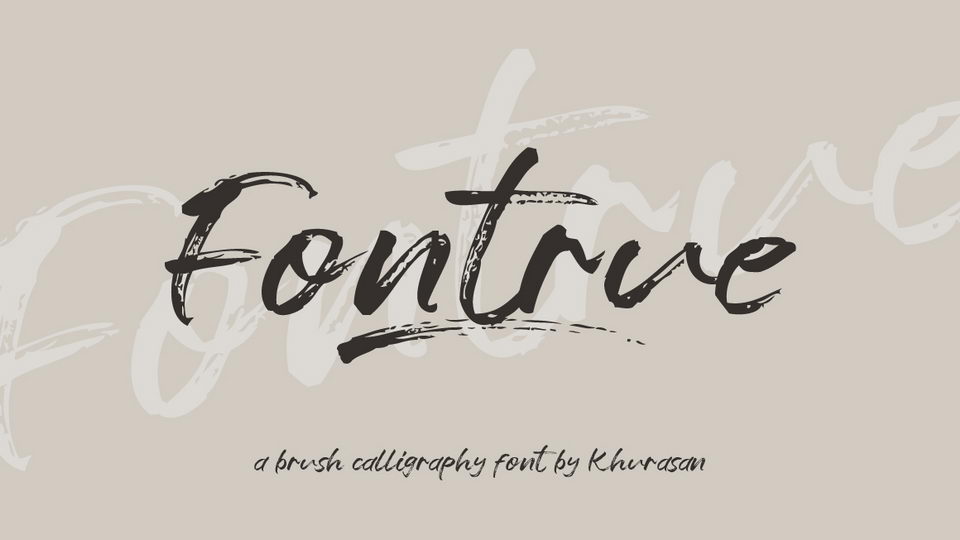
Download Fontrue font, a rough brush painted typeface with a strong character set. Fontrue font is perfect for posters, headlines, flyers, social media, merchandise and more.